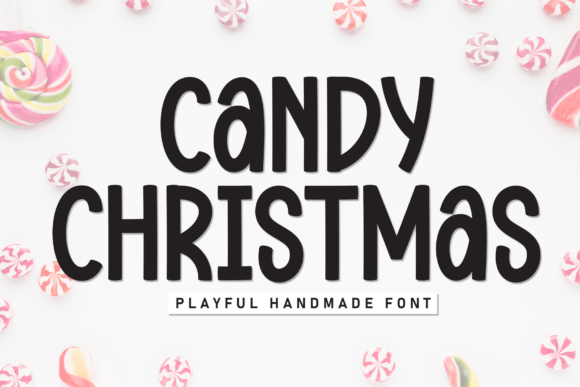
Unwrapping the Perfect Design Gift: Candy Christmas Font
It’s the most wonderful time of the year for designers – the holiday season is upon us, and with it comes the opportunity to create festive, fun, and engaging content. Whether you’re crafting a holiday card, designing a festive advertisement, or simply looking to add a touch of cheer to your social media graphics, the right font can make all the difference. And that’s exactly where the Candy Christmas Font comes in – a delightful display font that brings a smile to your audience’s faces and a dash of personality to your projects.
Perfect for adding a fresh and friendly touch to your designs, the Candy Christmas Font is a versatile and stylish choice for posters, branding, packaging, and more. Its clean shapes, soft edges, and well-balanced letterforms make it a valuable addition to any designer’s toolkit, offering both readability and personality in equal measure.
Candy Christmas Font Key Features
- Unique Characteristics: Whimsical, hand-drawn design with a festive holiday theme
Candy Christmas Font Review
Overall, I think the Candy Christmas Font is a fun and playful choice for holiday-themed designs. ✨ It’s perfect for creating festive and whimsical graphics that will add a touch of magic to your projects. The font is available in both bold and regular weights, making it easy to use in various contexts.
- Playful and festive vibe ✨
- Available in bold and regular weights
- Perfect for holiday-themed designs
- Can be used in various contexts, from digital to print
However, there are a few limitations to keep in mind. ⚠️ The font may not be suitable for professional or formal designs, as it’s quite casual and playful. Additionally, some letters may not be as smooth or refined as you’d like.
- Not suitable for professional or formal designs ⚠️
- Some letters may not be smooth or refined
- Limited flexibility in terms of customization
Overall, I think the Candy Christmas Font is a great choice for designers who want to add a touch of holiday magic to their projects. While it may have some limitations, its playful and festive vibe makes it a great option for casual designs.
Getting the Most Out of the Candy Christmas Font
To get the most out of the Candy Christmas Font, try experimenting with different font sizes, colors, and styles.
Use the font in combination with other festive elements, such as holly, snowflakes, and candy canes, to create a cohesive and fun holiday design.
Don’t be afraid to get creative and try new things – the Candy Christmas Font is the perfect tool for making your holiday projects stand out!